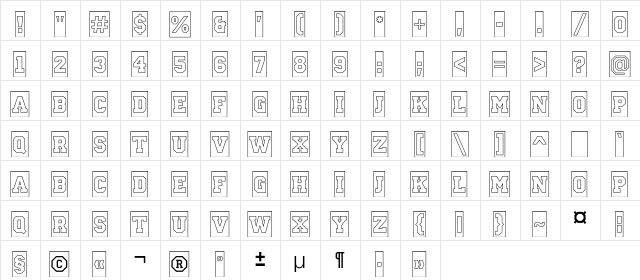
a_CampusCmOtl Bold
Design Context for a_CampusCmOtl Typeface
a_CampusCmOtl offers clean, dependable letterforms without strong stylistic allegiance, making it a practical choice for designers who need flexibility. The heavy weight commands attention and anchors typographic hierarchies.